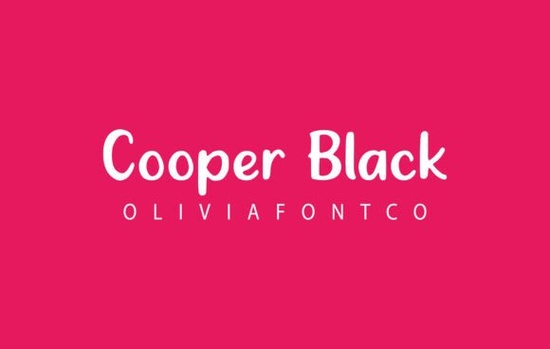
Cooper Black Font is a standout choice for anyone looking to add a touch of elegance and personality to their designs. This handwritten font brings a romantic feel that can elevate everything from wedding invitations to branding materials. Whether you're a designer, crafter, or small business owner, Cooper Black offers a unique style that stands out without being overwhelming.
If you're exploring different fonts, you might find other options like Hello Honey Font or Bubble Font useful for different projects. Each has its own character, but Cooper Black is especially great for creating a warm, personal vibe. It's perfect for logos, social media posts, and even custom T-shirt designs.
One of the reasons designers love Cooper Black is because it’s easy to read while still having a distinctive look. It works well in both digital and print formats, making it a versatile addition to your font collection. If you're working on a project that needs a bit of flair, this font can help you achieve just that without complicating your design process.
Why Choose Cooper Black?
Cooper Black isn’t just another font it’s a tool that can bring your creative vision to life. Its handwritten style gives it a personal, authentic feel that many other fonts lack. This makes it ideal for projects that require a human touch, such as greeting cards, banners, or promotional materials.
For those who enjoy experimenting with different styles, fonts like Hello Kitty Font or Lobster Font offer similar energy but with different aesthetics. However, Cooper Black strikes a balance between creativity and readability, making it a go-to choice for many professionals.
How to Use Cooper Black Effectively
Using Cooper Black effectively starts with understanding the context of your project. For example, if you're designing a logo, using it as a headline can add a sense of warmth and approachability. In contrast, using it for body text might not be the best idea unless you’re going for a very stylized look.
Try pairing it with simpler fonts for contrast. A clean sans-serif like Arial or Helvetica can complement the handwriting of Cooper Black without clashing. This combination works well for everything from website headers to marketing collateral.
If you're looking for more inspiration, check out other fonts like Bubble Font or Hello Honey Font. Each has its own strengths, but Cooper Black remains a top choice for its versatility and charm.
Remember, the key to successful design is finding the right balance between style and function. Cooper Black helps you achieve that balance by offering a beautiful, readable font that adds character to your work.
- Use Cooper Black for headlines and titles to add a personal touch.
- Pair it with simpler fonts for better readability.
Whether you're a seasoned designer or just starting out, Cooper Black Font is a valuable addition to your toolkit. Its romantic, handwritten style makes it ideal for a wide range of creative projects. Take some time to experiment with it and see how it can enhance your work.